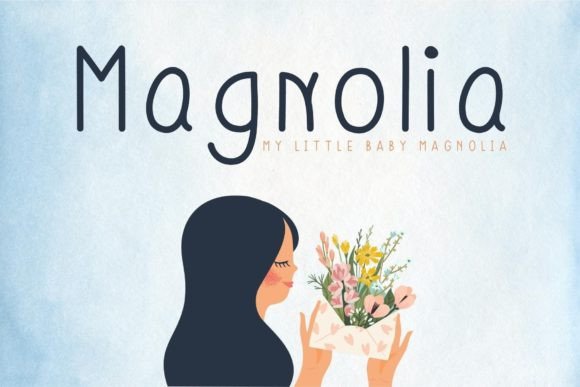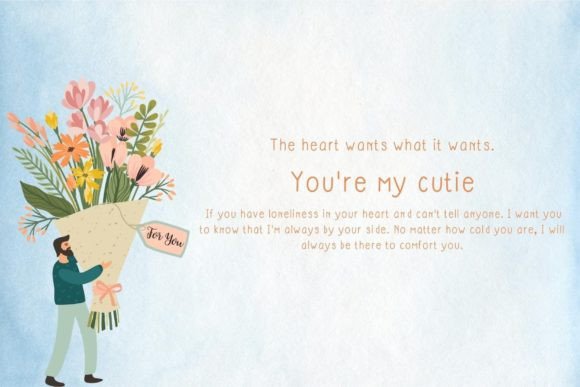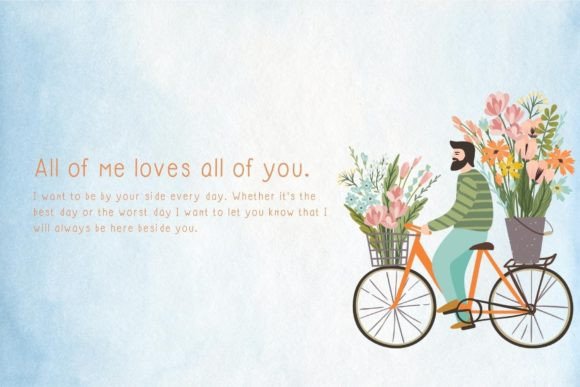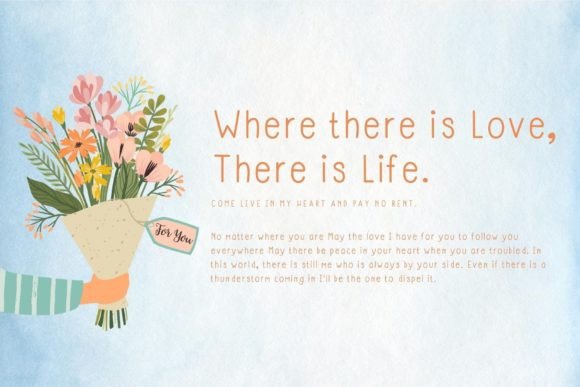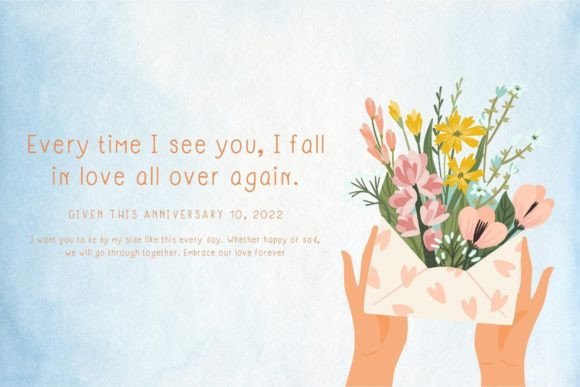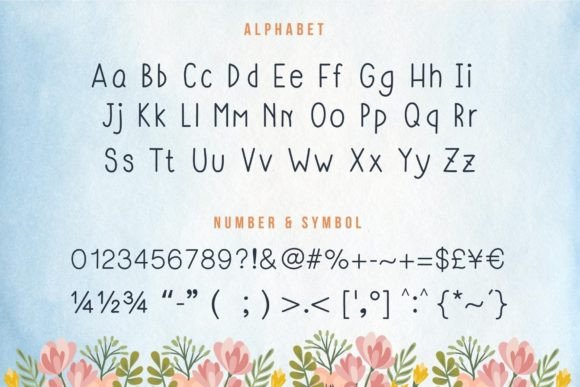
Magnolia Font
About Magnolia Font
The Magnolia font is a delightful fusion of simplicity and fun, meticulously crafted to infuse your designs with a unique charm. This font effortlessly strikes a balance between simplicity and attention-grabbing elements, making it stand out in a crowd. Its versatility is particularly well-suited for minimalist theme designs, whether you opt for a sleek black palette or a vibrant burst of colors.
At its core, the Magnolia font embraces simplicity while ensuring that your designs don’t go unnoticed. The clean lines and unassuming style make it an excellent choice for a variety of projects, allowing your work to emanate a subtle sophistication that captivates the audience.
Tailor-made for minimalist-themed designs, the Magnolia font not only adheres to the principles of simplicity but elevates them to new heights. Whether applied to a monochromatic color scheme or incorporated into a vibrant and colorful composition, this font seamlessly adapts, enhancing the overall visual appeal of your creations.
Consider integrating the Magnolia font into your creative repertoire to witness how it can transform your work into a more engaging and inspired form. Its inherent ability to bring a touch of fun to your designs makes it a valuable asset, especially when aiming to create a lighthearted and enjoyable visual experience.
Incorporate this lovely font into your projects and experience firsthand how it can infuse a sense of playfulness and inspiration. Whether you’re working on branding, posters, social media graphics, or any other creative endeavor, let the Magnolia font be the catalyst for making your work more enjoyable, more spirited, and ultimately more memorable. Embrace the simplicity and fun that Magnolia brings to the table, and let it be a source of inspiration in your creative journey.